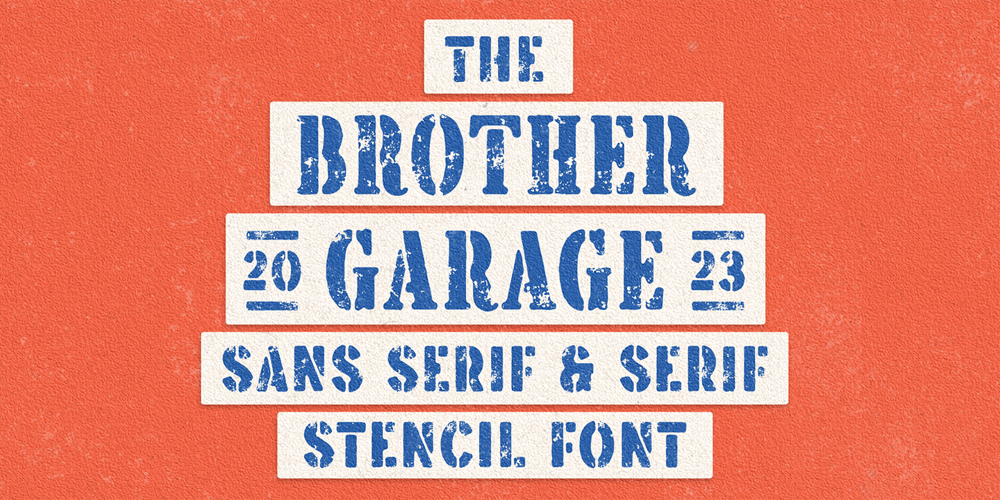
Brother Garage Font Family was designed by Edi Gunawan and published by Edignwn Type. Brother Garage contains 7 styles and family package options. Introducing Brother Garage, the ultimate vintage motorcycle-inspired font collection designed to bring the spirit of the garage to your designs. This combines the best of stencil serif and sans serif fonts. With three unique styles – regular, rough, and stamp – Brother Garage offers authenticity, allowing you to effortlessly bring your designs with the rustic and classic looks. But that’s not all! Alongside the Brother Garage fonts, you’ll receive a fantastic bonus of 13 crafted illustrations.